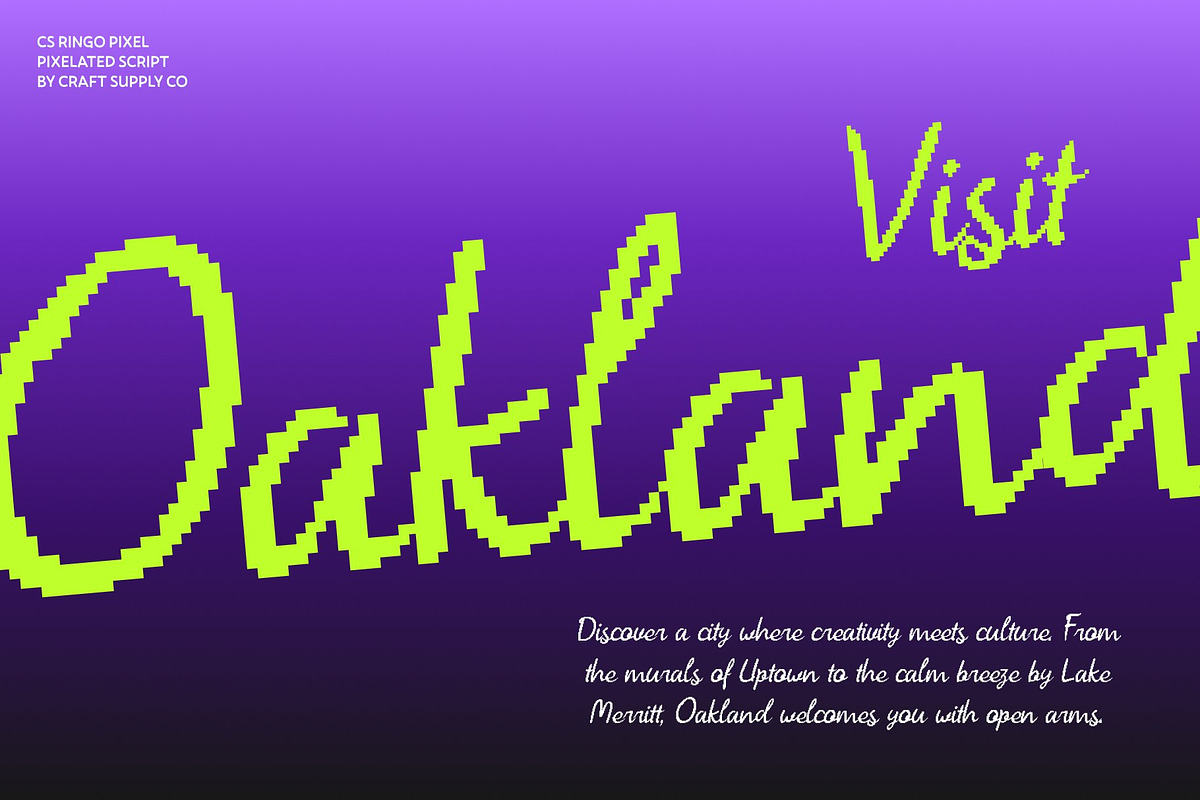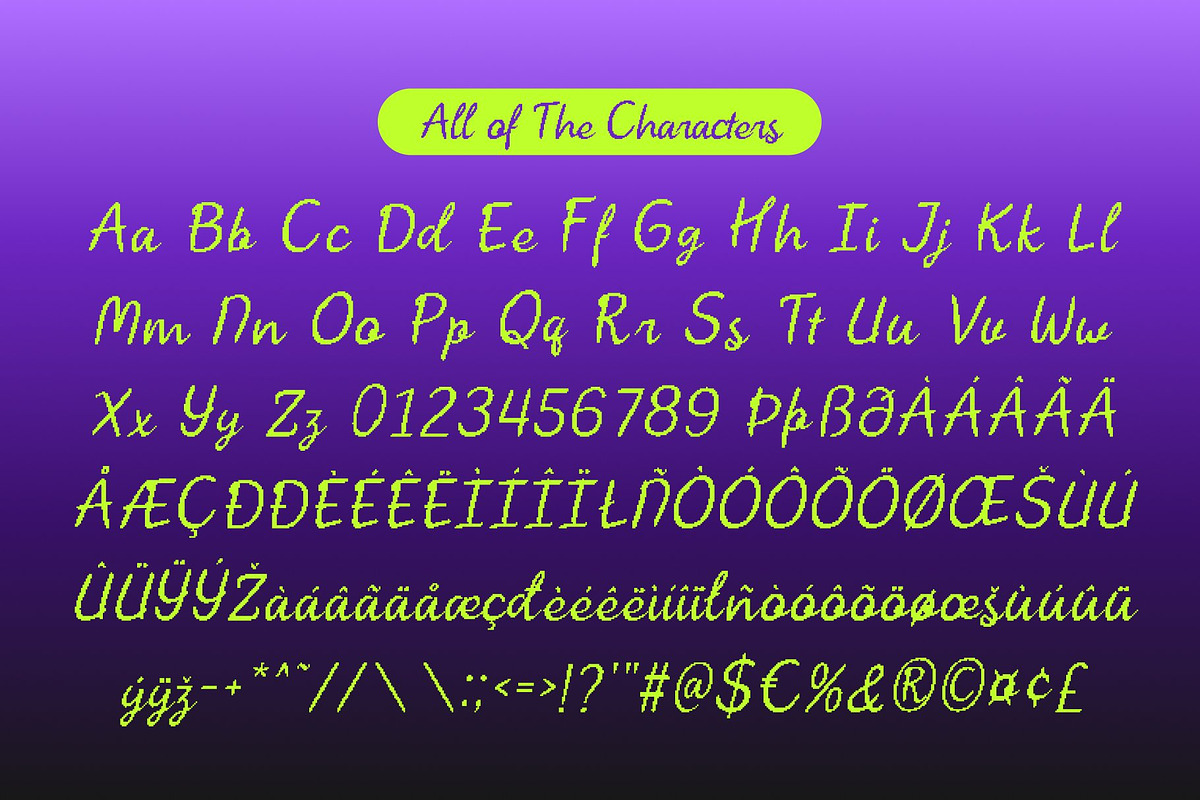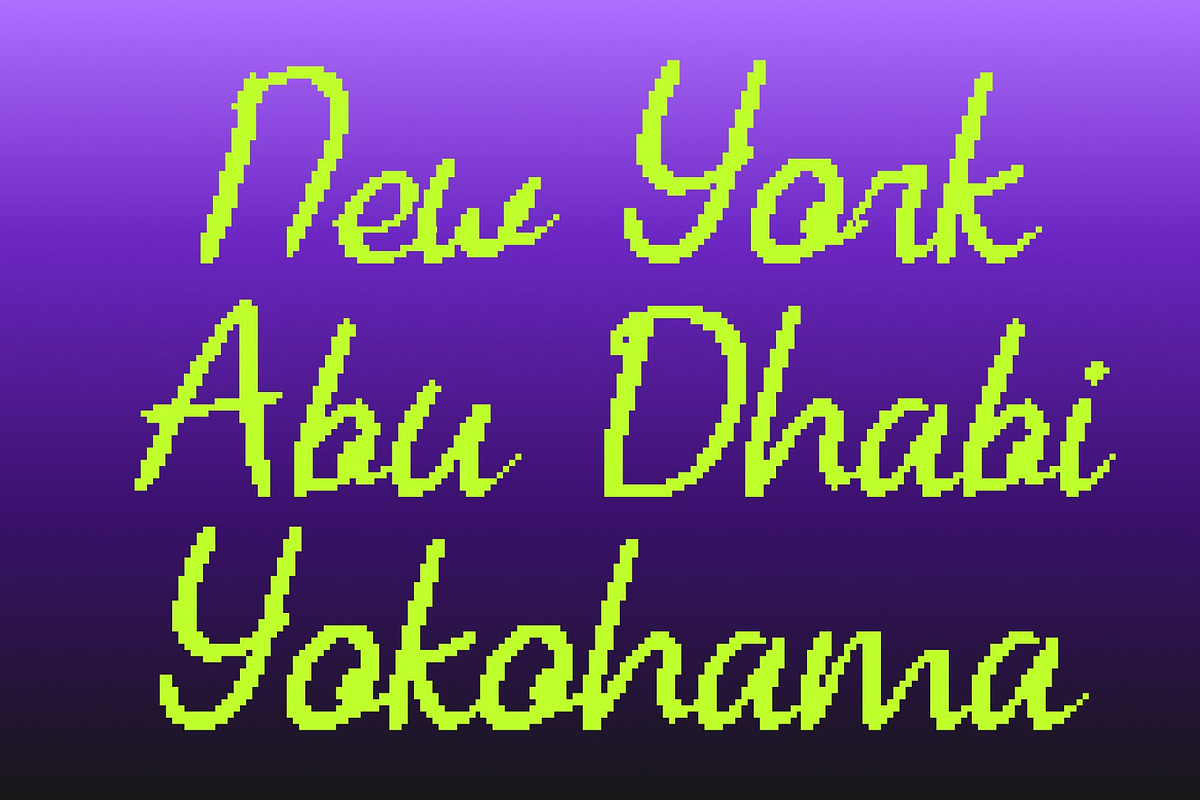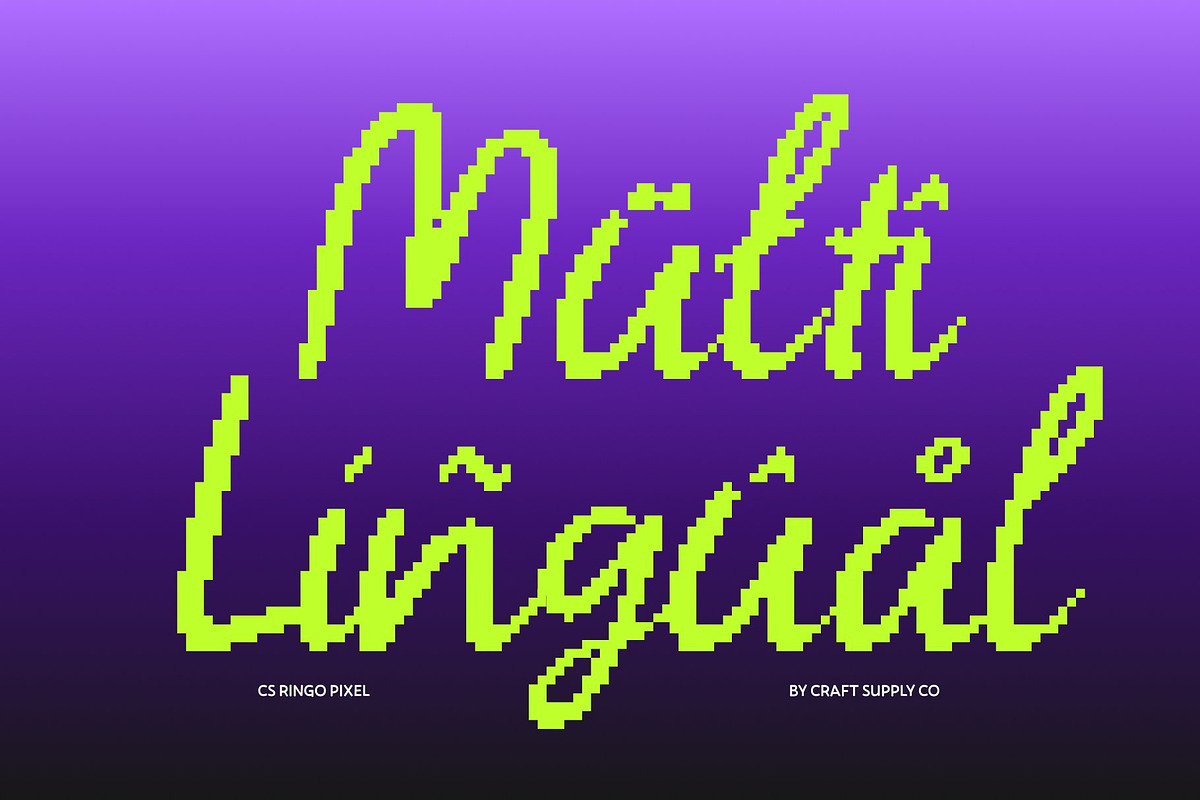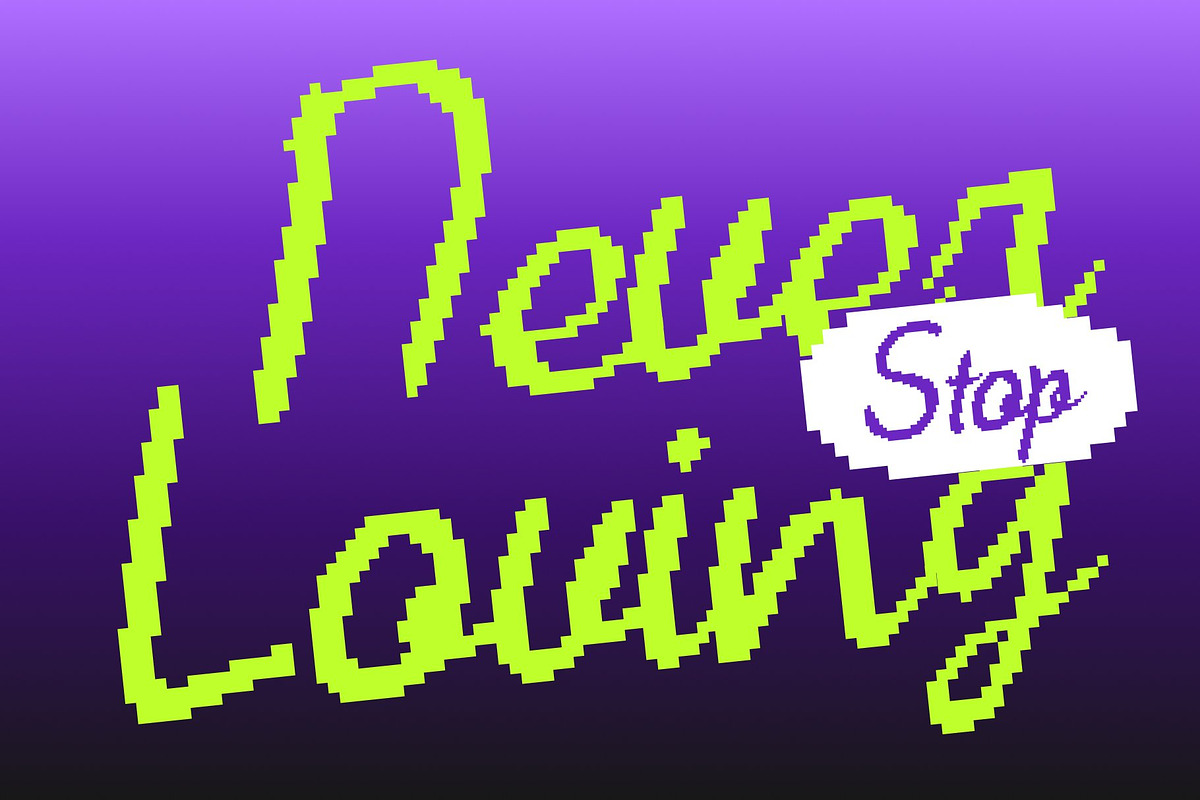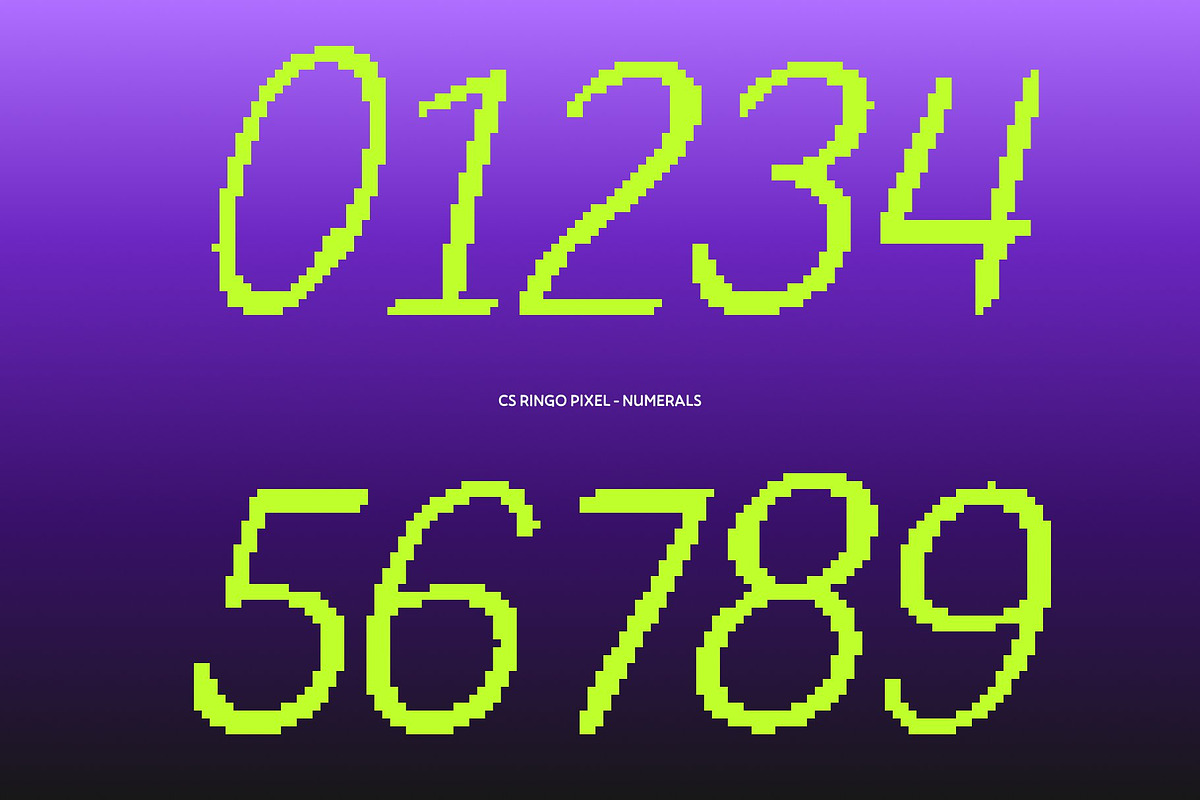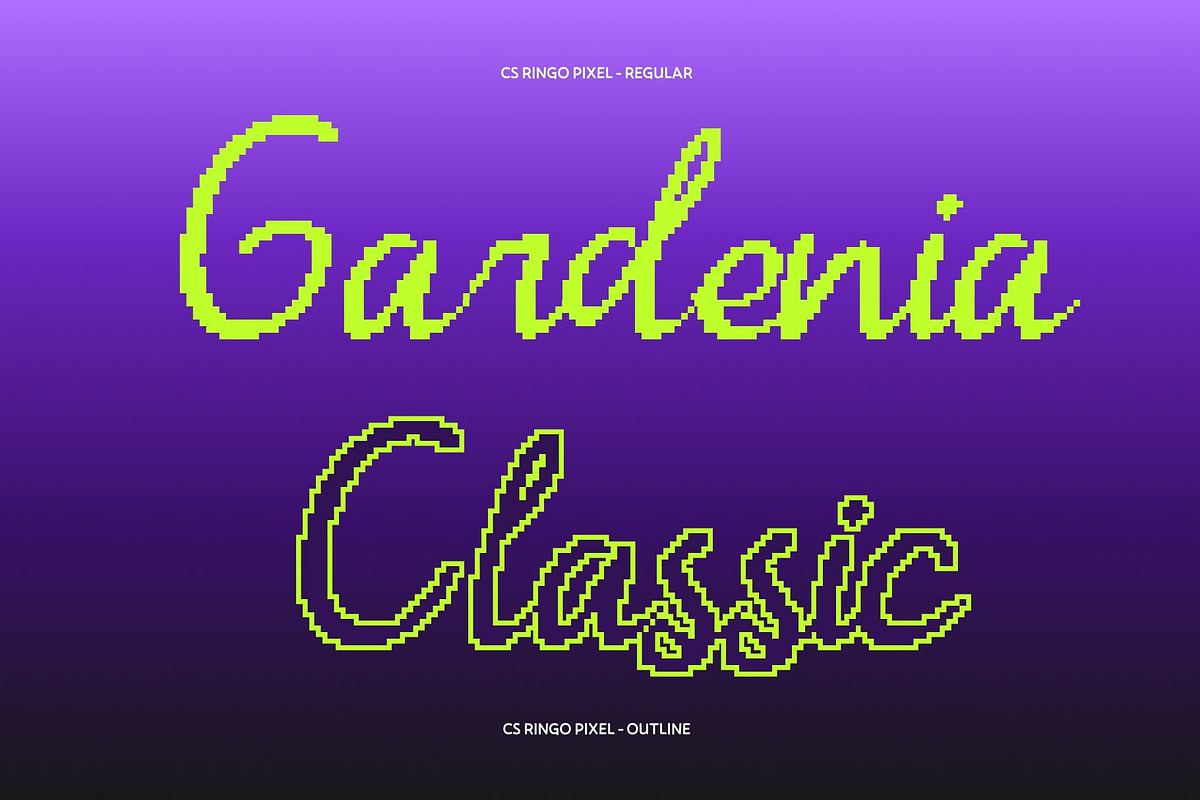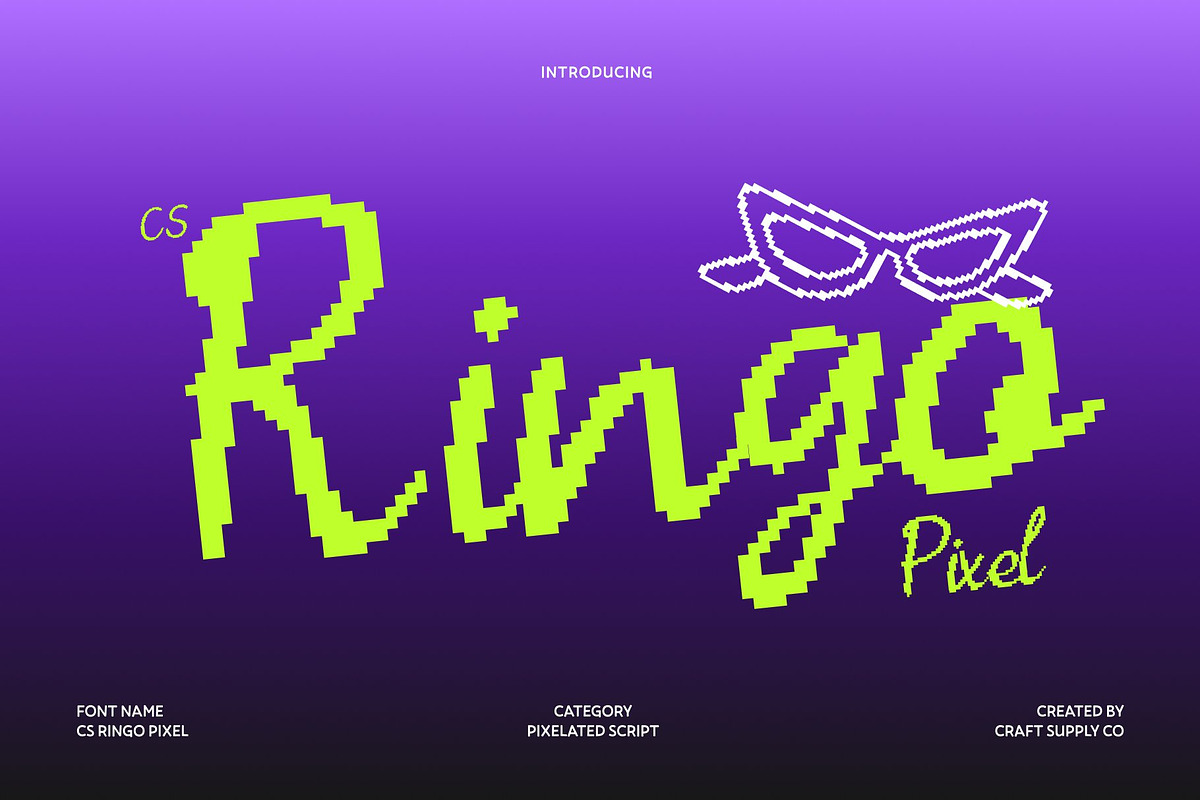
CS Ringo Pixel
CS Ringo Pixel – Handwritten Script Font with Digital Charm
Script with Pixel-Inspired Personality This is a handwritten script font that blends feminine with subtle pixel character. Its flowing strokes and refined curves preserve the beauty of natural handwriting, while the pixel treatment introduces a distinctive digital twist. The result is a script font that feels warm, stylish, and perfectly suited for both modern and retro-inspired designs.
Whimsical Handwriting with Digital Texture The whimsical nature of this font comes from its organic curves and expressive rhythm, enhanced by a pixel-style structure that adds texture and uniqueness. This fusion creates an authentic hand-drawn feel with a nostalgic digital edge, making every word feel personal, playful, and visually engaging.
Perfect for Invitations, Letters, and Retro Digital Designs This font shines in invitations, romantic letters, greeting cards, and wedding stationery, while its pixel influence makes it equally eye-catching for digital projects inspired by old technology, retro screens, or nostalgic aesthetics. It brings charm and emotion while standing out in both print and digital formats.
Versatile for Branding, Illustration, and Creative Media Beyond stationery, this font works beautifully for logos, fashion branding, illustrations, social media graphics, and creative digital content. Its balance of elegance and pixel character allows it to adapt effortlessly across industries, delivering a refined yet approachable voice with a memorable retro-modern appeal.
- CS Ringo Pixel Regular
- CS Ringo Pixel Outline